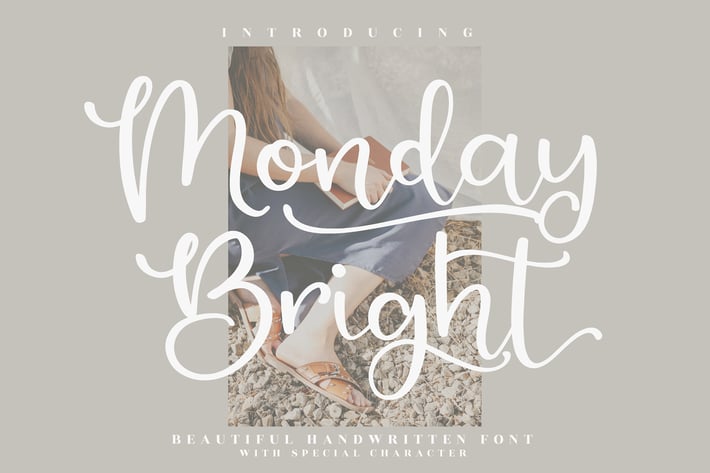
Monday Bright Handwritten Font
Monday Bright is a beautiful handwritten font that adds a special character and charm to your projects. With its smooth flow and elegant strokes, it is perfect for creating personalized and modern designs. Ideal for social media posts, branding, and creative projects, this font brings a fresh, light-hearted touch to any design.
Handwritten font with elegant and stylish character
Smooth flow and unique letterforms
Great for branding, personal projects, and social media content
Wedding invitations and stationery
Social media posts and quotes
Branding and logo design
Personalized greeting cards
Product packaging and labels
Marketing materials for lifestyle and creative brands
Customizable text for websites and blogs
Stylish, graceful, and perfect for any creative project — Monday Bright is sure to brighten up your designs.*